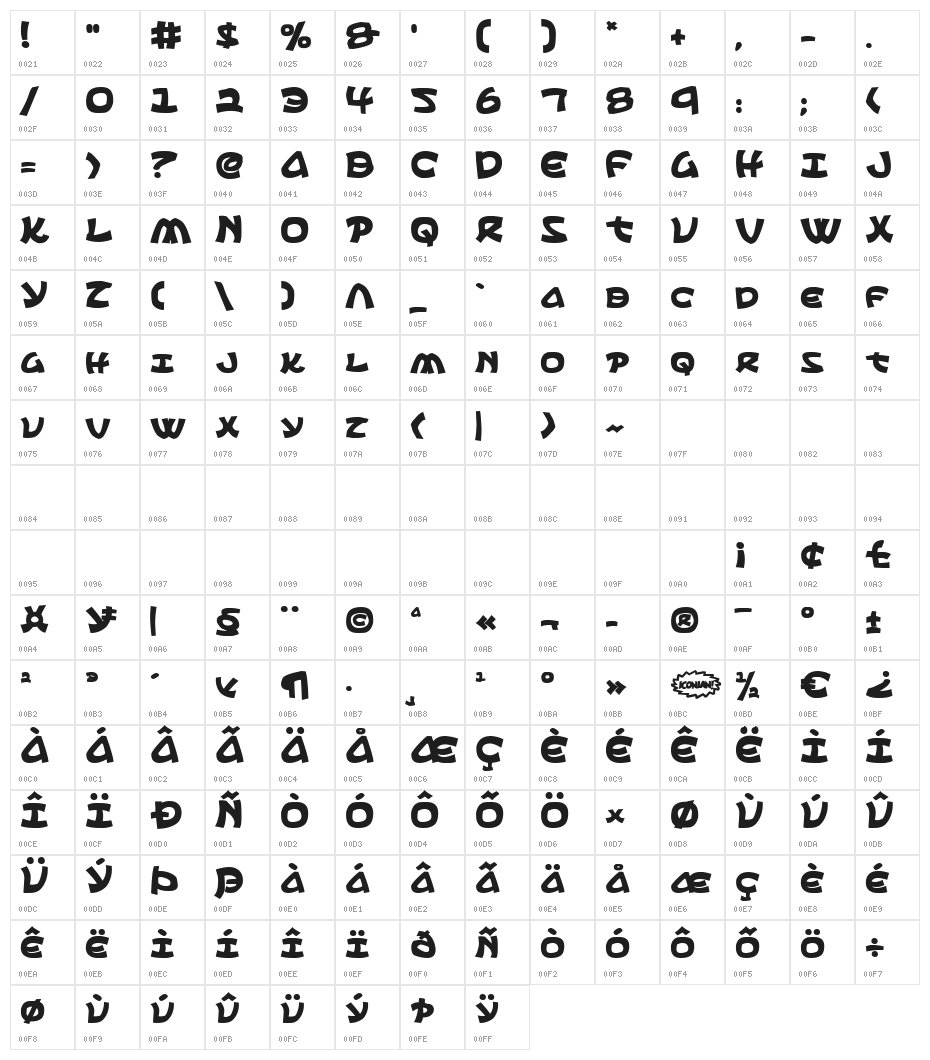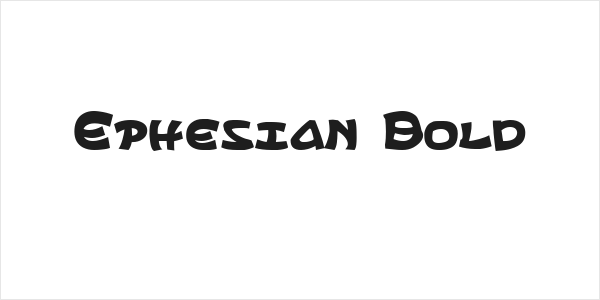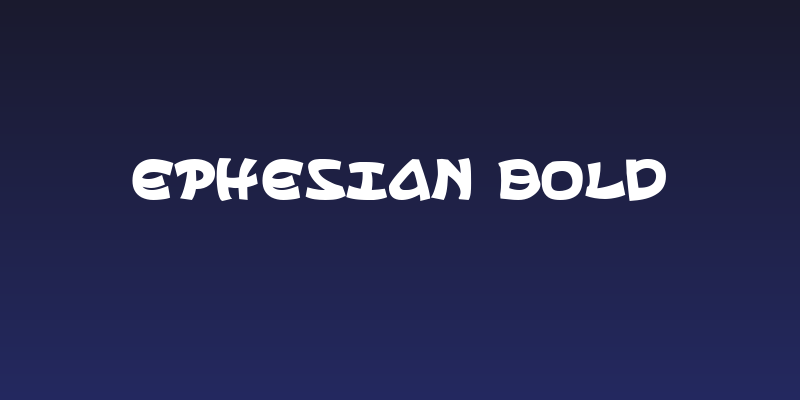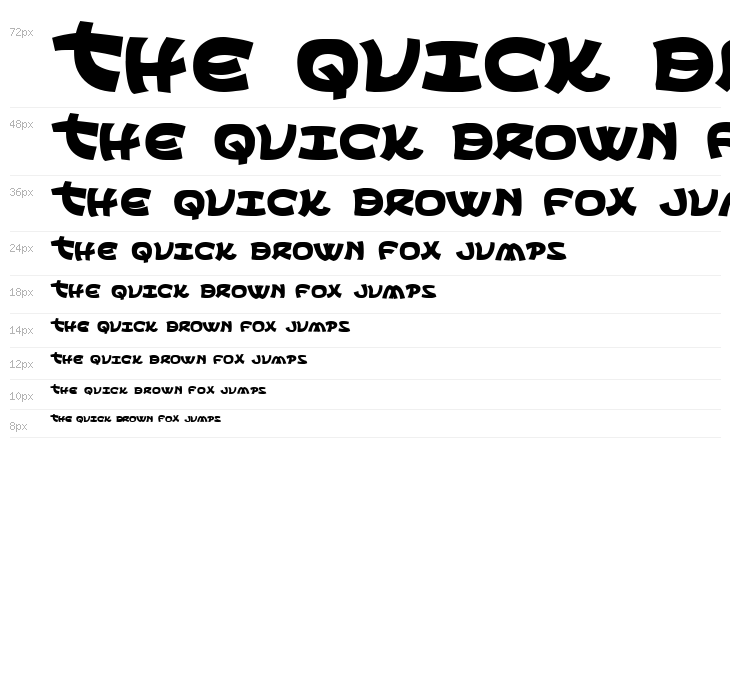
Ephesian Bold Font
Ephesian Bold Description
This font features bold, playful characters with a unique, slightly curved design that gives it a dynamic and energetic appearance. The letters are thick and robust, with a strong presence that makes them stand out. The style is reminiscent of graffiti or street art, with a modern twist that adds a sense of fun and creativity. The characters are well-spaced, ensuring readability while maintaining a cohesive look. This font is ideal for projects that require a bold statement, such as posters, headlines, or branding materials.